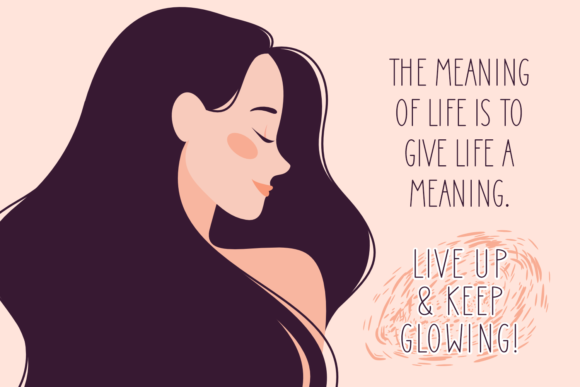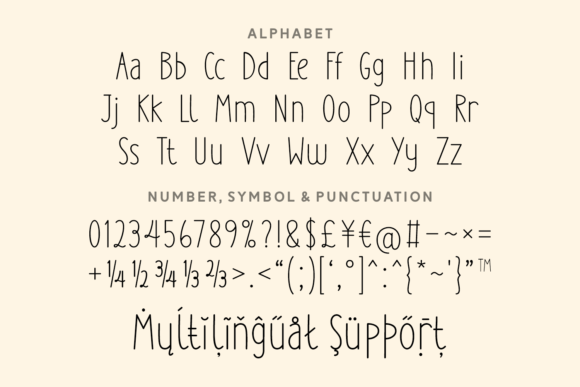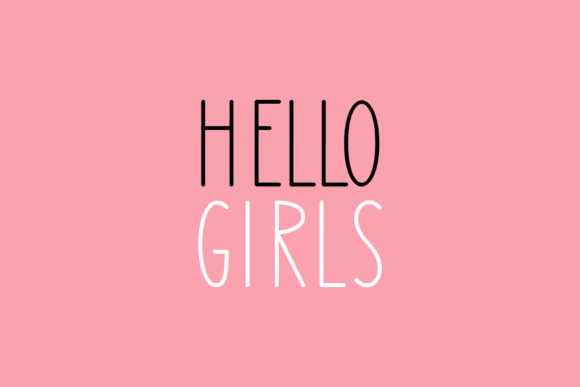
Introduction to Light Glow Font
Light Glow is a simple and dainty handwritten font, perfect for almost any creative project.
Try it on product packaging, name tags, posters, book covers, social media posts, apparel designs, wedding invitations, etc .
Key Features of Light Glow Font